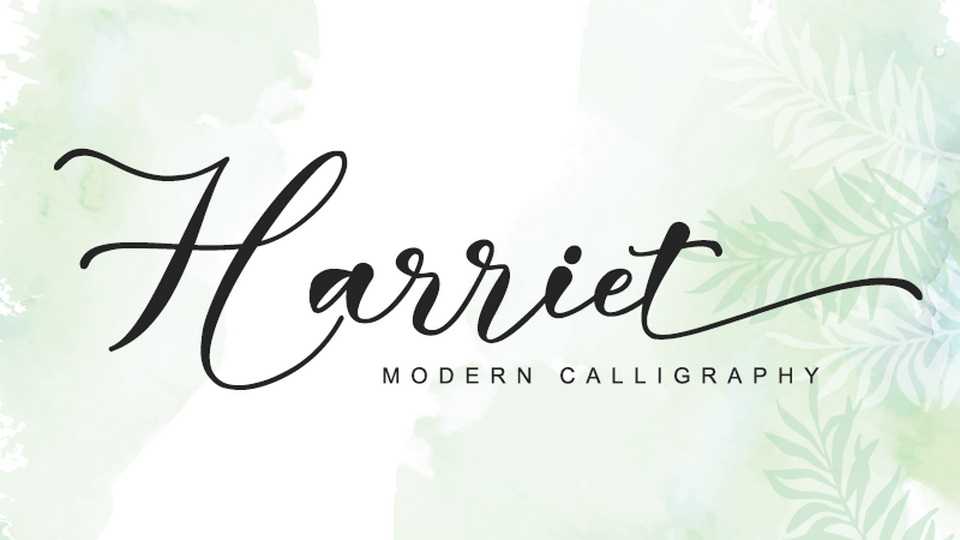
Download Harriet font, a refined and delicate handwritten typeface. This lovely script font has a wide spectrum of applications ranging from greeting cards to headlines and is guaranteed to add a romantic feel to your next project.
Designer: Thomas Aradea